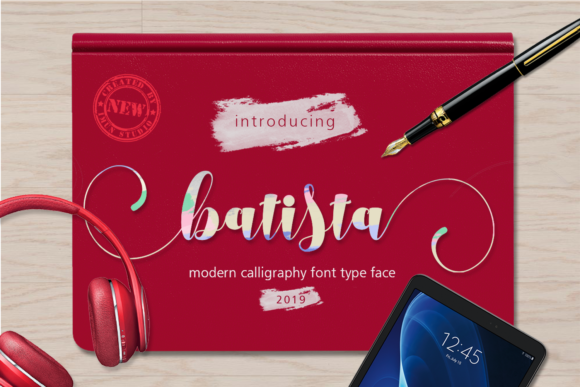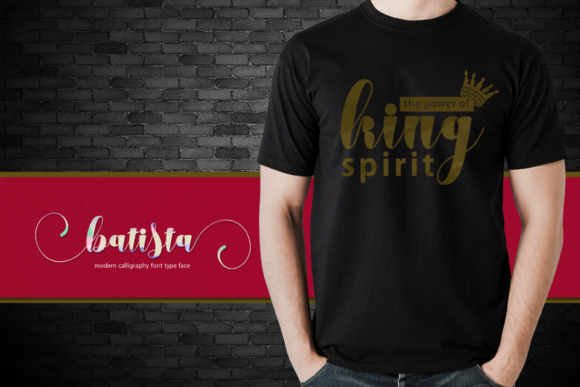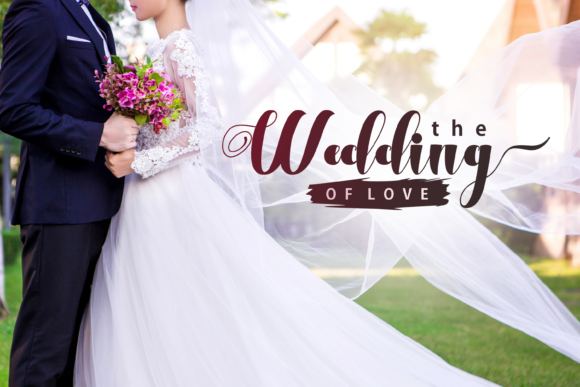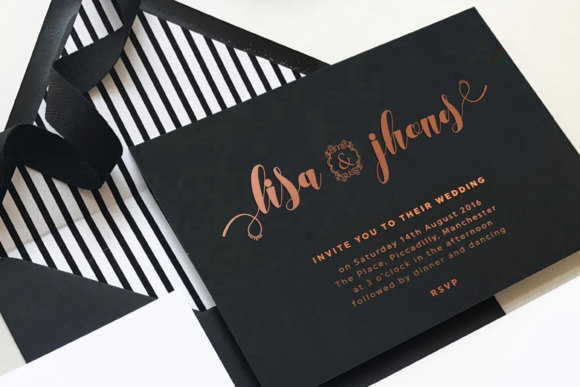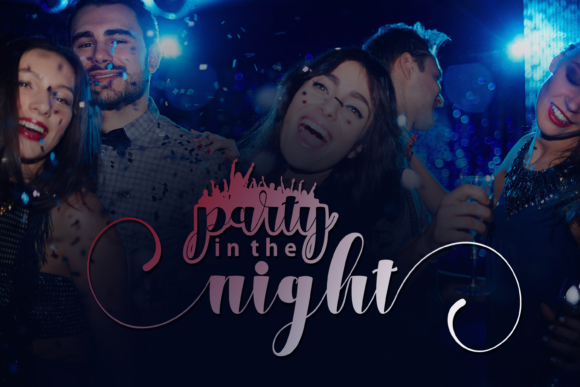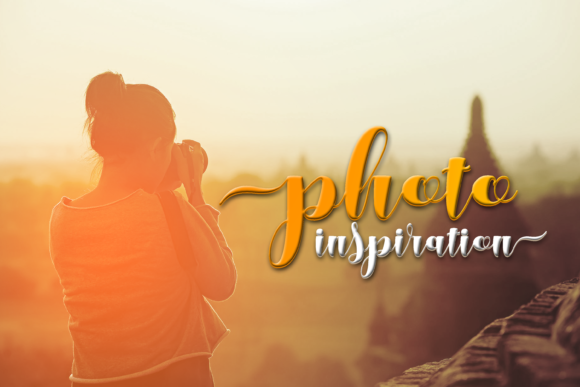
HomeScript FontsBatista Font Script Fonts Batista Font FacebookXPinterestWhatsApp Batista Font Poster 2 Batista Font Poster 3 Batista Font Poster 4 Batista Font Poster 5 Batista Font Poster 6 About Batista Font The Batista is a modern calligraphy font. It has an unique handwritten look with a natural writing style. DOWNLOAD NOW People also explored Hellena Font La Petite Font Ballon Font Runlove Font Chocoffee Font Friendly Font Joyeux Noël Font Realistic Mock-ups on Vintage Background Embroidery 332 0 TagsBatista Font Previous articleRainy Selly FontNext articleRiverswell Font LEAVE A REPLY Cancel reply Comment: Please enter your comment! Name:* Please enter your name here Email:* You have entered an incorrect email address! Please enter your email address here Website: Save my name, email, and website in this browser for the next time I comment. Personal Use Free Limejuice Personal Use Free Read more about this font Vivacious Personal Use Free Read more about this font Vembazax Rm Personal Use Free Read more about this font Kensin Personal Use Free Read more about this font BLOG The 10 Best Handwriting Fonts to Add Personality to Your Designs 10 of the Best Handwriting Fonts for Adding Personality to Your Designs There will undoubtedly be no other better choice than handwriting fonts to give... Elegant Wedding Invitation Fonts – Handwritten & Script Fonts Exploring Font Trends How to Cut Any Font on Cricut: Convert a Font to SVG (Free)